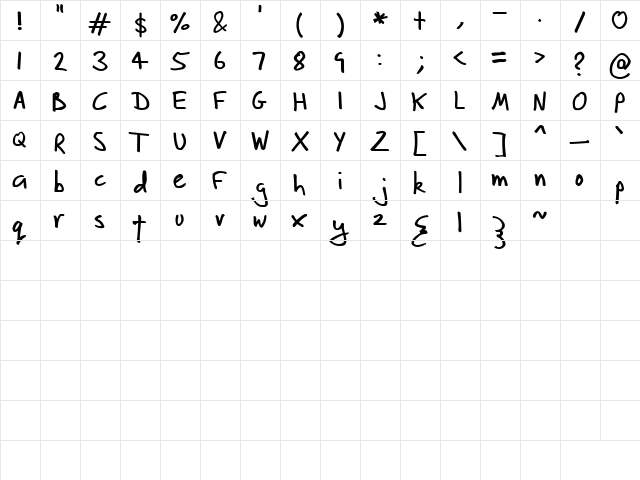
Fluff Bold Font Preview
Fluff Bold
Fluff Bold Font Details
| Designer | Sarah Thompson |
Design Context for Fluff Typeface
Fluff is a composed and adaptable typeface that performs quietly and consistently across a wide range of design contexts. The heavy weight commands attention and anchors typographic hierarchies.